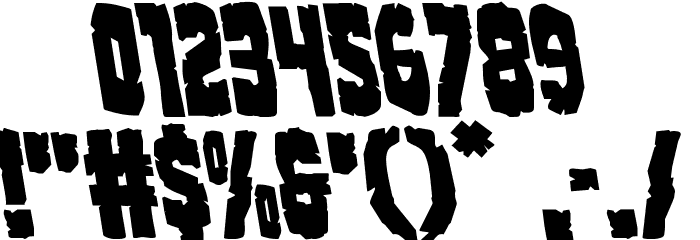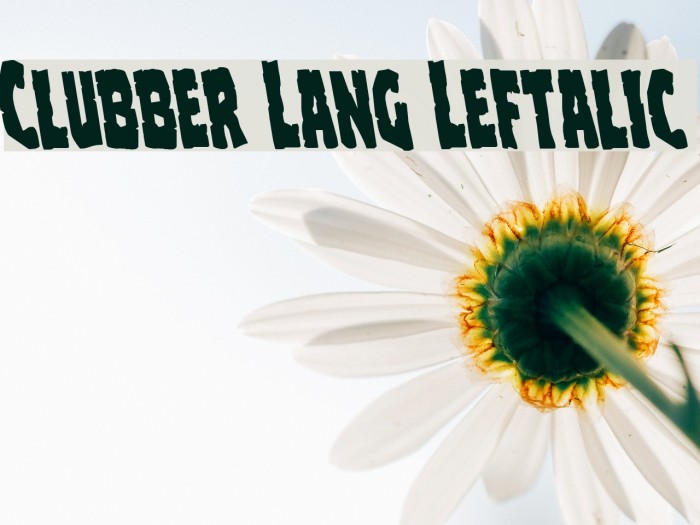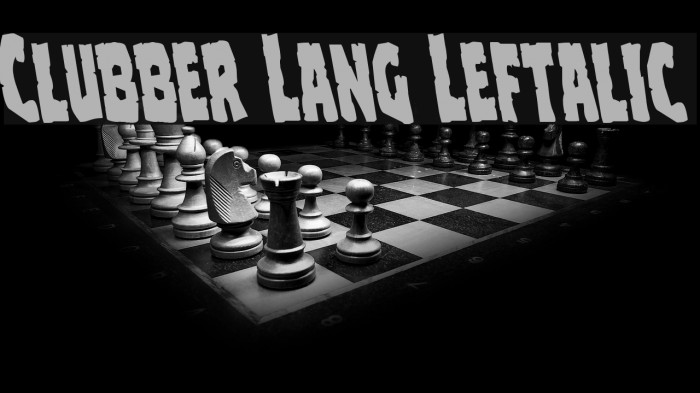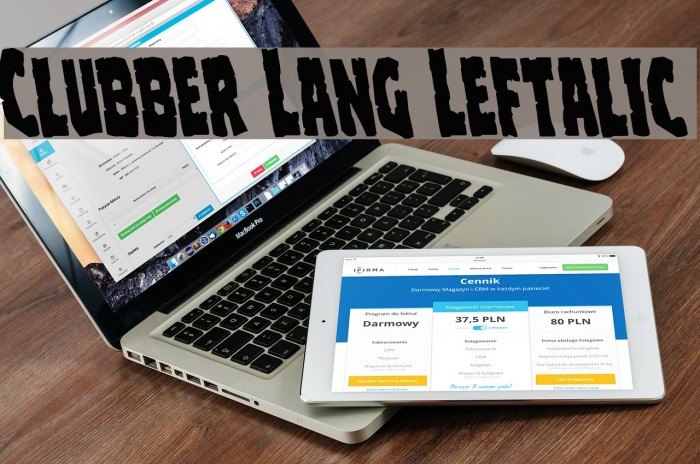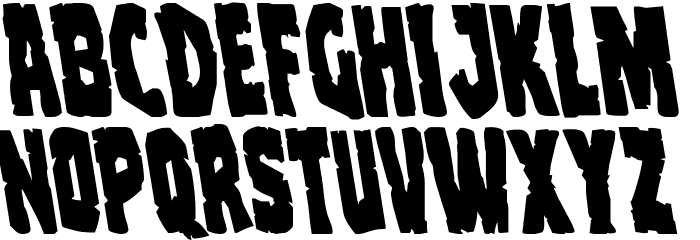
Clubber Lang Leftalic Font
Clubber Lang Leftalic Description
This font features a bold and rugged design with a distinctly distressed appearance. The characters are heavily stylized, with jagged edges and a rough texture that gives them a dynamic and energetic feel. The letters are slightly slanted, adding a sense of movement and urgency. This font is designed to stand out, making it ideal for attention-grabbing headlines or impactful graphic design projects. The numbers and special characters maintain the same bold and distressed style, ensuring consistency across all text elements.
A bold, distressed font with jagged edges and a dynamic slant from Cartoon fonts.
- Proposed Projects: Perfect for music posters, edgy branding, streetwear designs, and bold advertising campaigns.